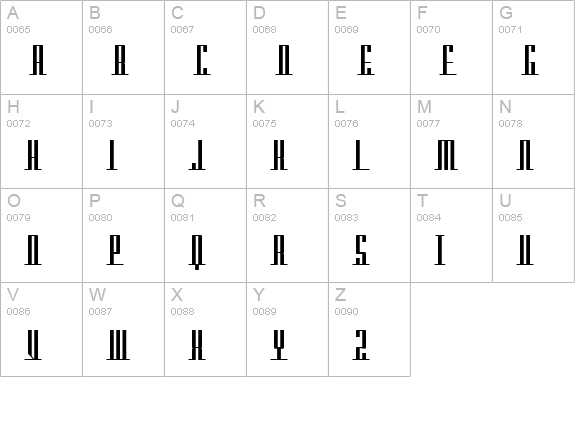
Americana Dreams Upright Font Details
Americana Dreams Upright font is a nostalgic and versatile typeface that exudes a sense of American heritage and tradition. Its classic and elegant design makes it perfect for a wide range of design projects, from vintage-inspired posters to rustic branding materials. The tall and slender letterforms give off a timeless and authentic vibe, while the subtle serifs add a touch of sophistication. What sets Americana Dreams Upright font apart is not only its beautiful aesthetic but also the fact that it is freely available to download at FontsMarket.com. This means that designers and creatives can easily access this high-quality font without any cost, making it a valuable addition to any font library. Whether you're working on a personal project or a client's design, Americana Dreams Upright font is sure to bring a touch of Americana charm to your work. Download Americana Dreams Upright font today and let your design dreams take flight with this stunning and timeless typeface.